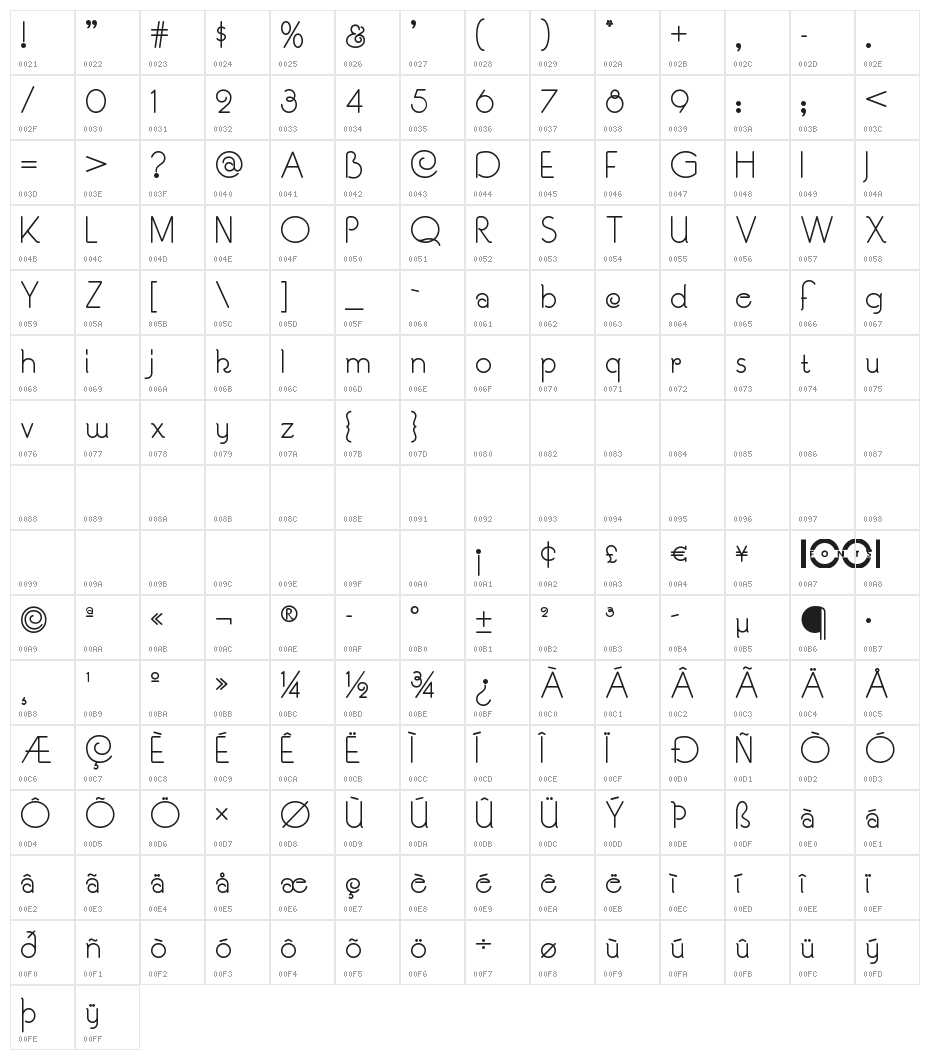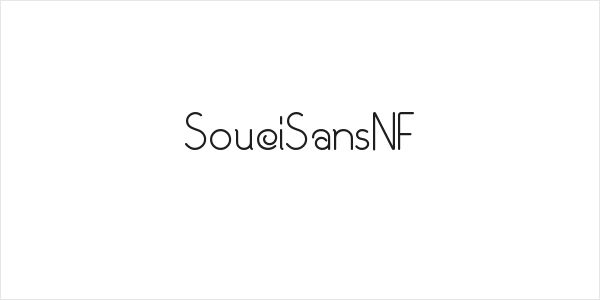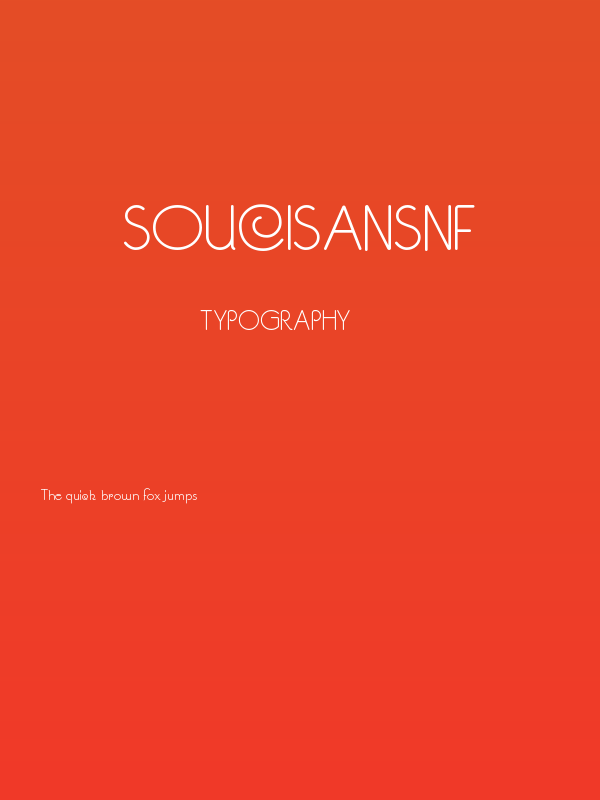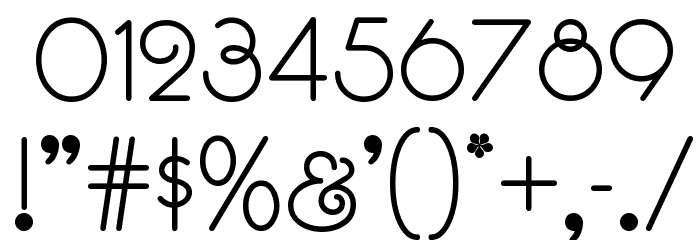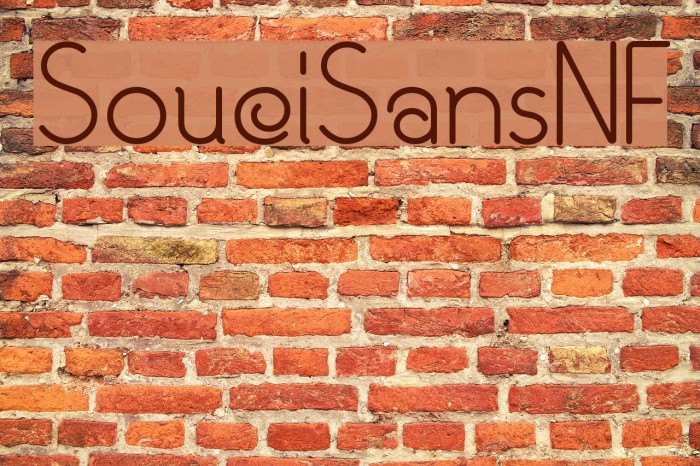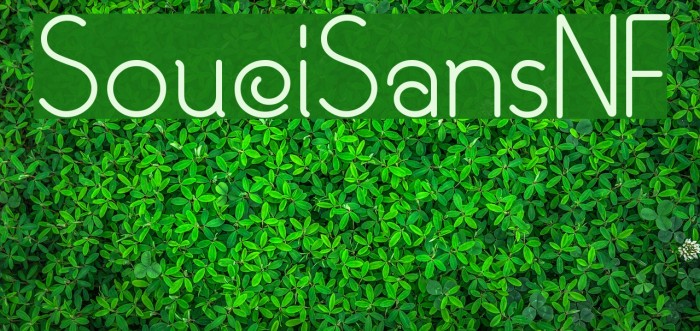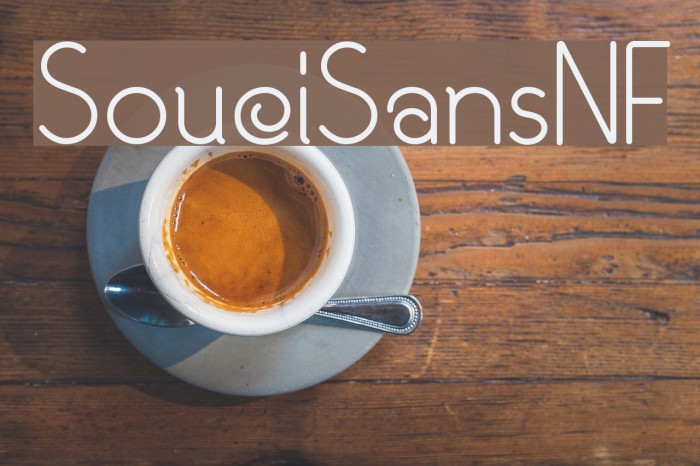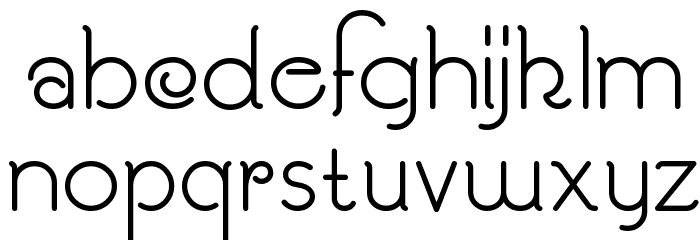
SouciSansNF Font
SouciSansNF Description
This font features a unique and playful design with a modern twist. The characters are rounded and have a consistent stroke width, giving it a clean and approachable appearance. The uppercase letters exhibit a slight geometric influence, while the lowercase letters maintain a friendly and casual style. The numerals are clear and easy to read, matching the overall aesthetic of the font. Special characters are designed with the same playful curves, making them blend seamlessly with the rest of the character set. This font is versatile and can be used in various design contexts where a modern yet approachable look is desired.